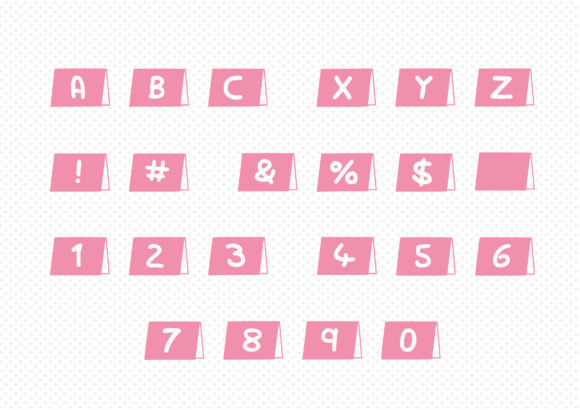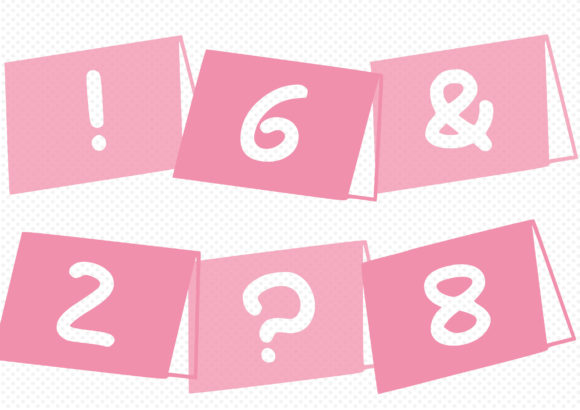
Introduction to Play Card Font
As a designer, there’s nothing quite like that moment when a project comes together, and you can see the entire concept in your mind’s eye. But, what elevates a design from good to great? The right font can make all the difference, and that’s where the Play Card Font comes in – a high-quality, design resource that’s sure to take your creative project to the next level.
With its unique, card-like design on each character, the Play Card Font is a free download that’s perfect for adding a touch of personality to your designs. Plus, its transparent background makes it easy to layer and manipulate – giving you the flexibility you need to bring your vision to life.
Key Features of Play Card Font
- High-quality vector design: Play Card Font is a well-crafted design resource ideal for creative projects requiring a professional look.
- Transparent background: The transparent background of this font allows for seamless integration into various design elements.
- Size and resolution: Designed to be scalable, with a resolution of 300 DPI for high-quality printing and digital display.
- Unique characteristics: The font’s distinctive design and playful style make it perfect for projects requiring a fun and creative touch.
- Perfect for card designs: As the name suggests, Play Card Font is specifically designed for card-related projects, including playing cards, greeting cards, and more.
Honest Review: Play Card Font
I recently came across the Play Card Font and I must say, it’s been a great addition to my design resources. This font is perfect for any creative project that requires a touch of elegance and sophistication.
- ✨ High-quality design that exudes luxury and refinement
- ✨ Excellent for use on transparent backgrounds, allowing the text to shine
- ✨ Perfect for any creative project, from business cards to wedding invitations
- ⚠️ Limited character set, making it less versatile for extended text
- ⚠️ Not ideal for use on low-resolution screens or devices
Overall, I’m thoroughly impressed with the Play Card Font. It’s a free download that’s sure to elevate any design project. While it may have some limitations, the benefits far outweigh the drawbacks. If you’re looking for a high-quality design resource, the Play Card Font is definitely worth checking out.
Play Card Font
Tips for Getting the Most Out of Play Card Font
For a high-quality design, use Play Card Font with a transparent background to create a sleek and modern look. This design resource is perfect for creative projects that require a unique and eye-catching font.
Play Card Font is commonly used in card designs, invitations, and other creative projects that require a fun and playful touch. With its free download option, you can easily incorporate this font into your design without breaking the bank.